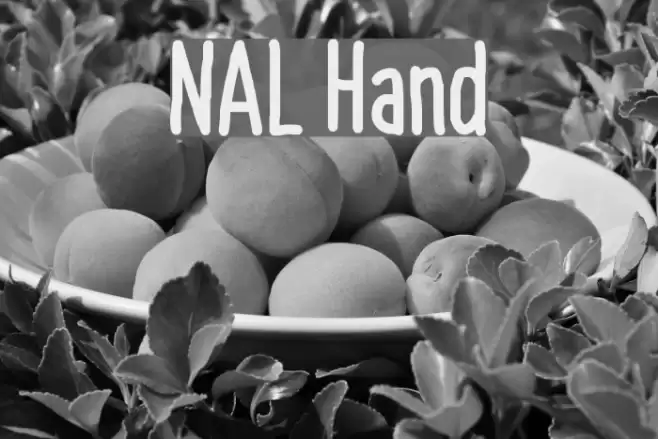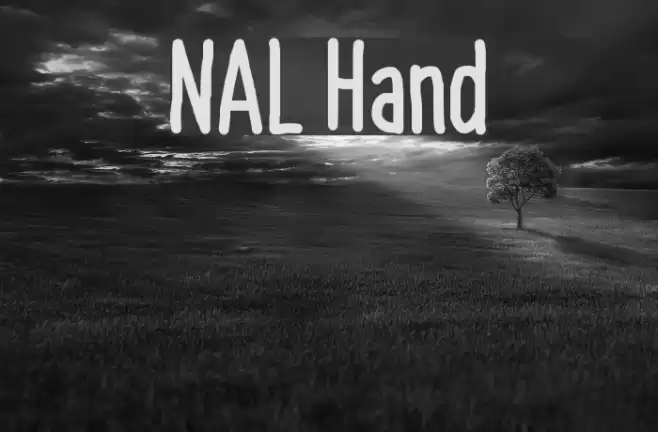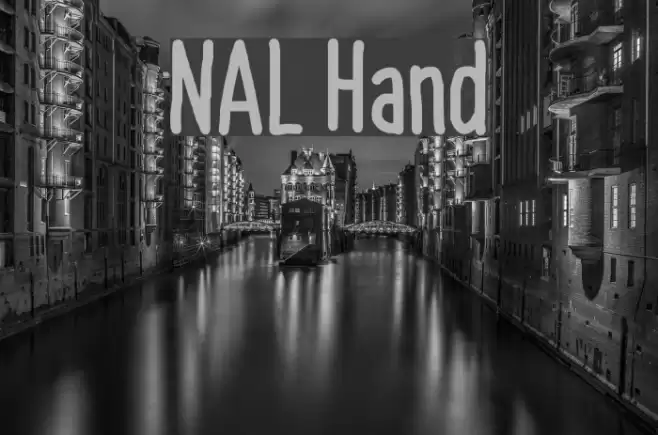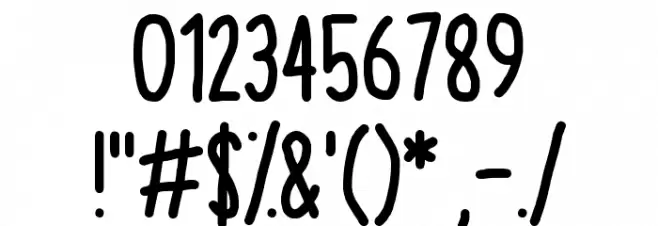
NAL Hand
This font features a playful and casual handwritten style, characterized by its rounded edges and slightly irregular letterforms, which give it a friendly and approachable appearance. The uppercase and lowercase letters maintain a consistent flow, while the numerals and special characters complement the overall aesthetic. The strokes are moderately thick, providing good legibility without sacrificing the informal charm. This font is versatile, suitable for projects that require a personal touch or a relaxed vibe.
A playful, casual handwritten font with rounded edges and moderate thickness.
- Proposed Projects: Ideal for greeting cards, children's books, casual branding, and social media graphics.
- Overall Style: Casual, Playful
- Use Case: Headlines, Informal text, Branding